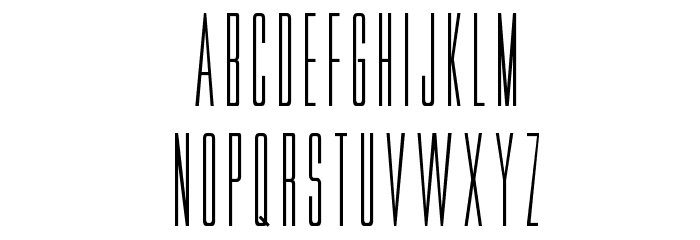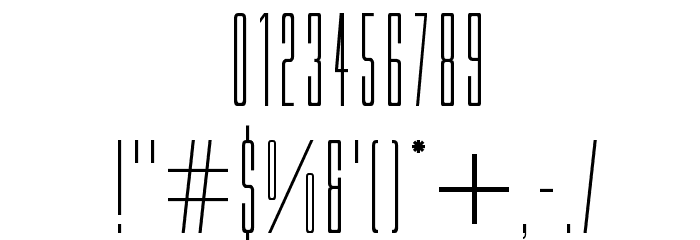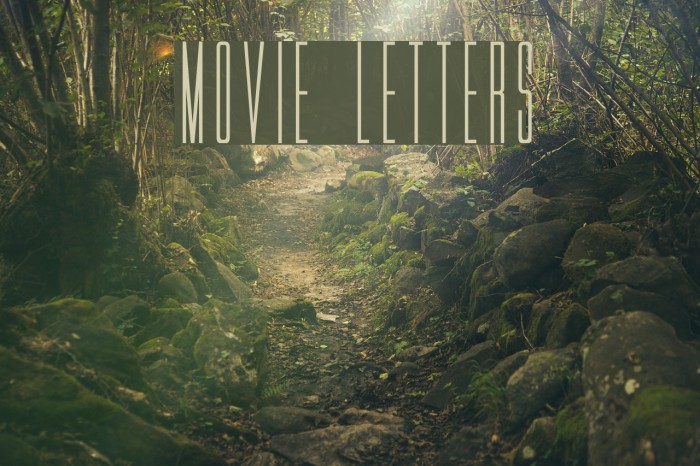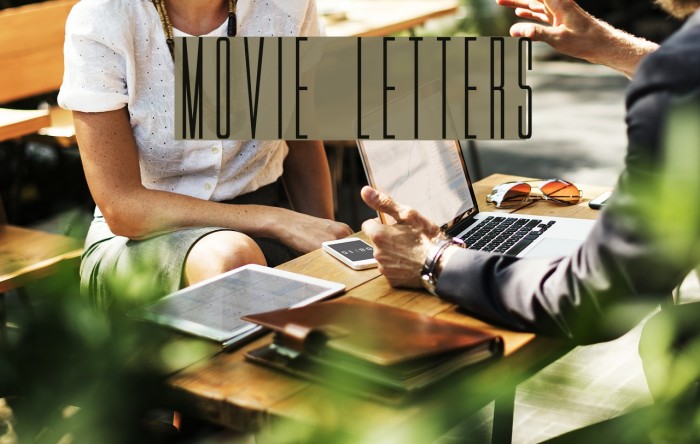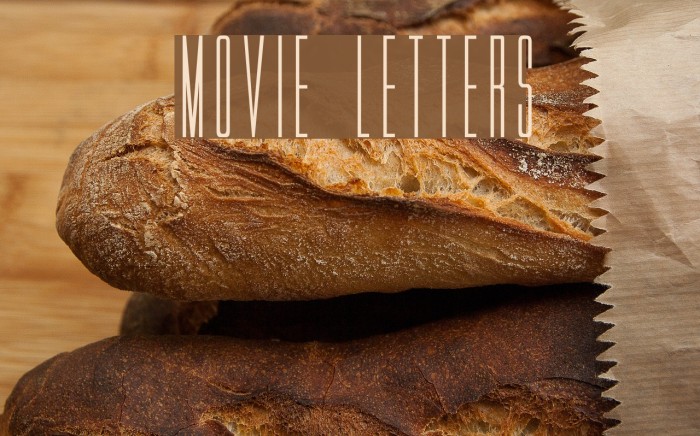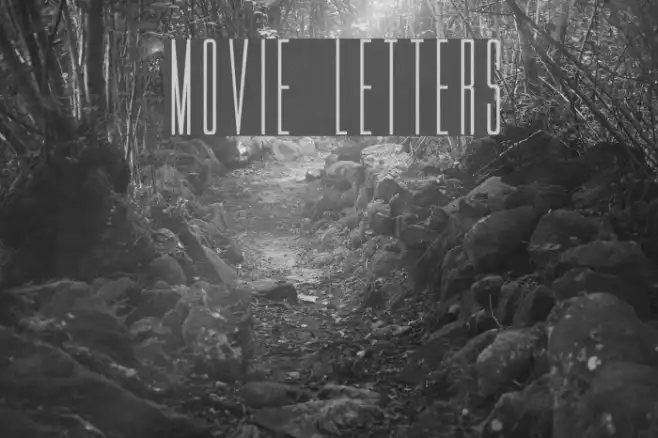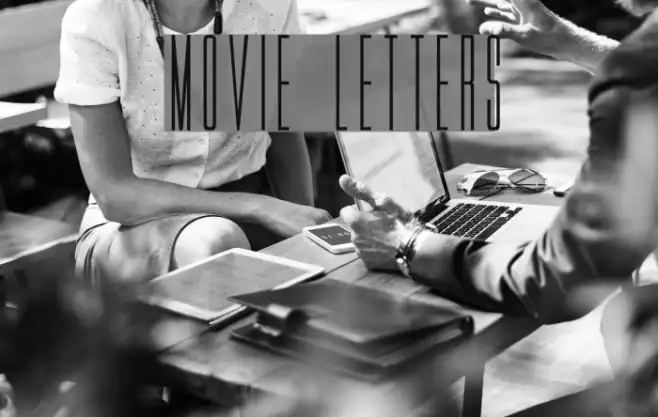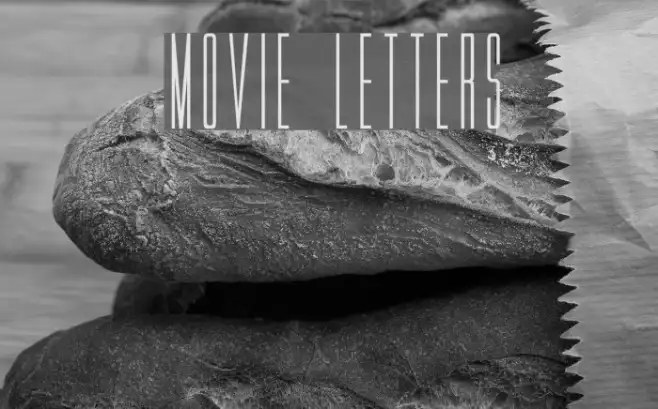
Movie Letters Font
This font features a tall, narrow design with a distinctly modern and elegant appearance. The characters are elongated with a consistent stroke width, giving them a sleek and sophisticated look. The uppercase and lowercase letters maintain a uniform height, contributing to a clean and orderly aesthetic. The numerals and special characters are designed to complement the overall style, ensuring readability and visual harmony. This font's minimalistic and refined nature makes it suitable for a variety of applications where a contemporary and stylish impression is desired.
A tall, narrow, and modern font with consistent stroke width and elegant design.
- Proposed Projects: Ideal for movie posters, fashion magazines, luxury branding, and editorial design.